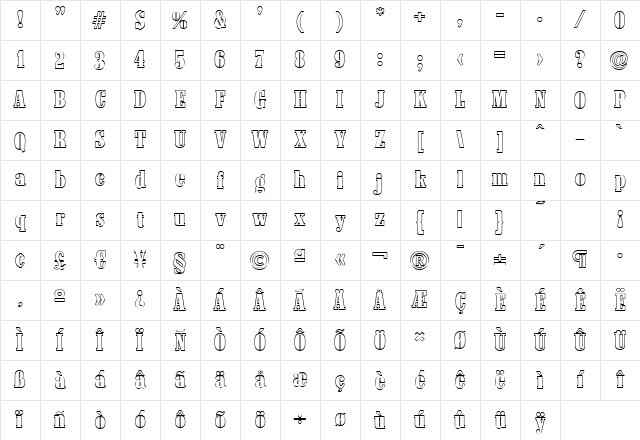
RobertBeckerOutline-Heavy Regular
Design Context for RobertBeckerOutline-Heavy
RobertBeckerOutline-Heavy is built around its visual character rather than neutral utility - its distinctive forms are designed to make an impression at display sizes.
Font Pairing: Pair with a clean neutral sans-serif for body copy to let RobertBeckerOutline-Heavy's character lead without overwhelming the composition.
Pro Tip: Use RobertBeckerOutline-Heavy exclusively at display sizes - it was designed to be seen, not read at length. Let a neutral companion handle body copy.